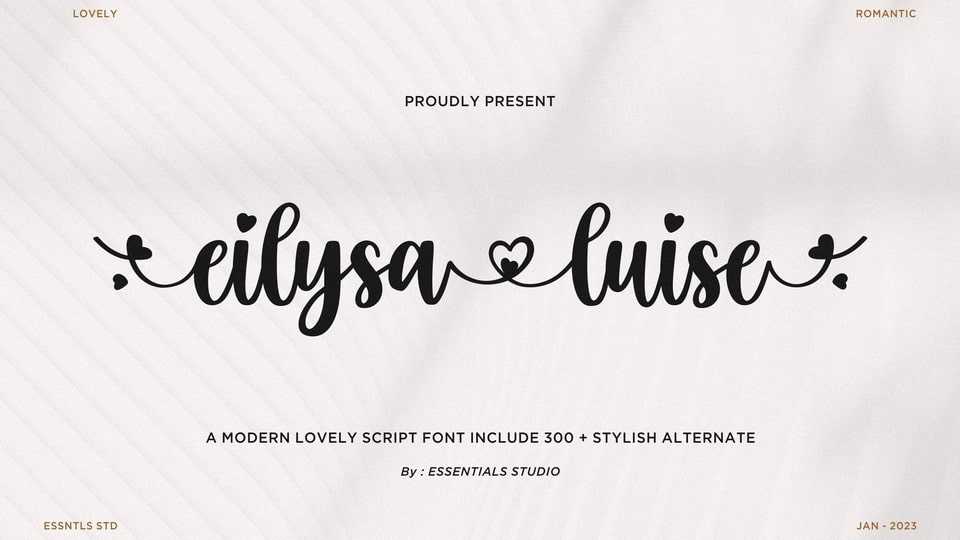
Download Eilysa Luise font, a dazzling script typeface neatly crafted and highly detailed. Whatever the topic, Eilysa Luise font will be a wonderful asset to your font library, as it has the potential to enhance any creation.
Designer: Essentials Studio